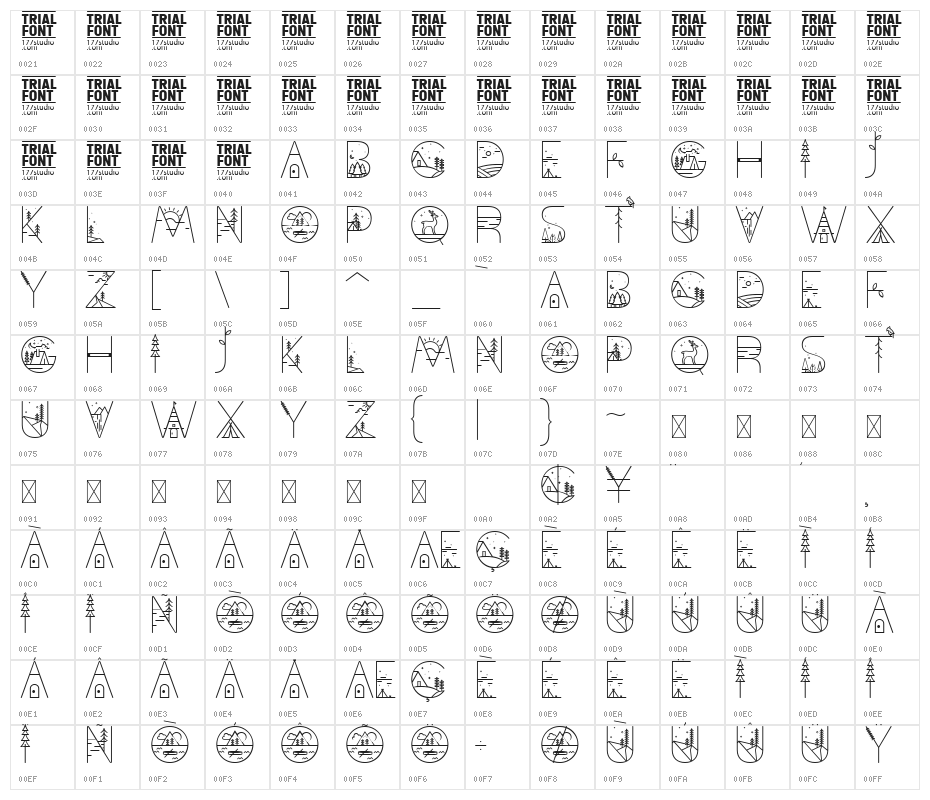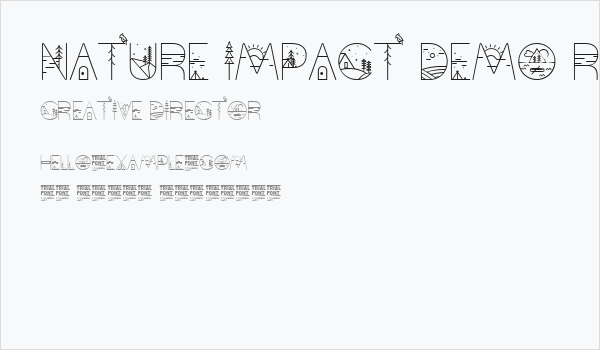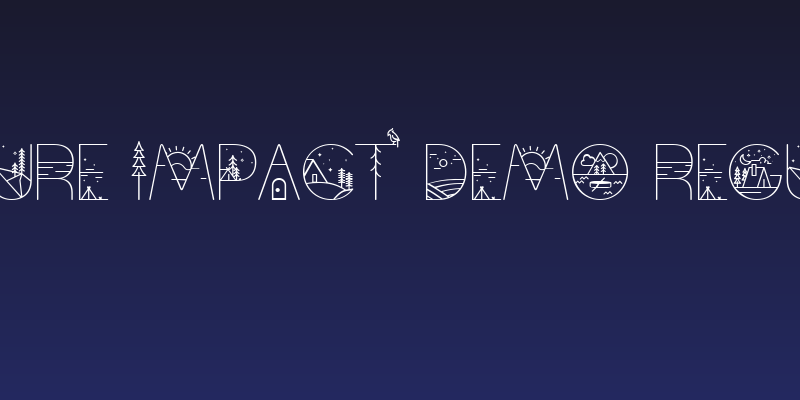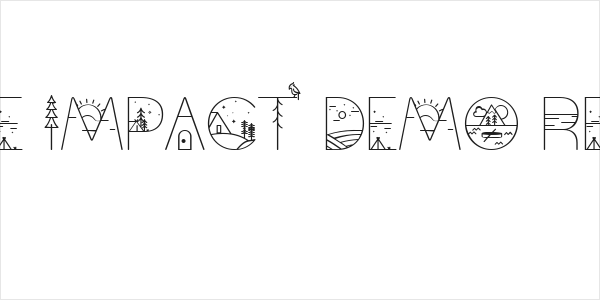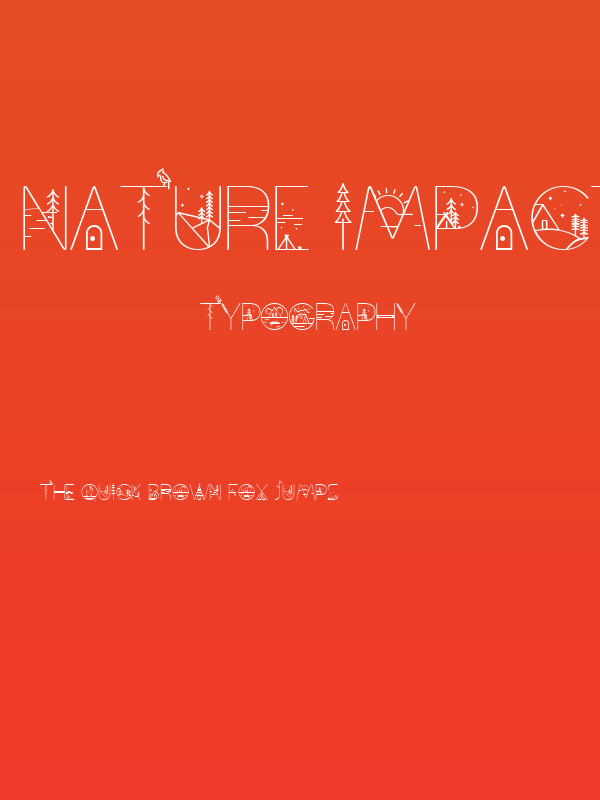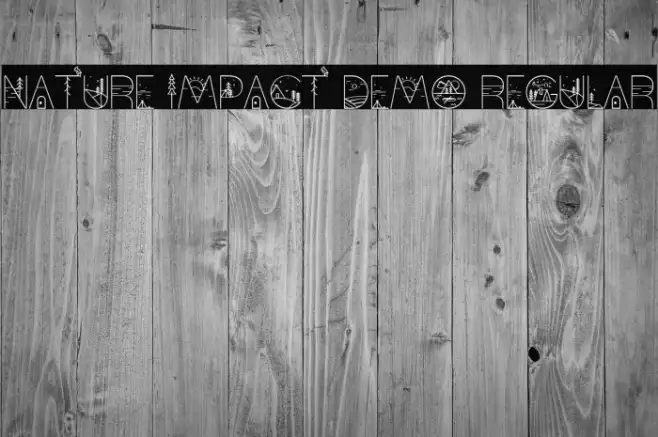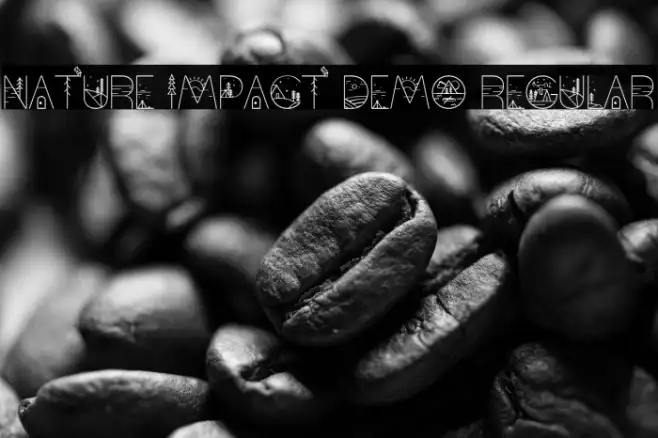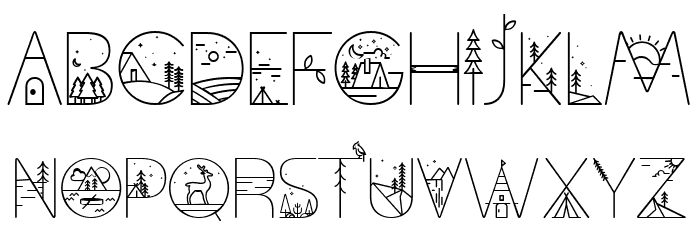
Nature Impact Demo Regular Font
Nature Impact Demo Regular Description
This font features a unique and creative design where each letter is integrated with nature-inspired elements. The uppercase letters are adorned with illustrations of trees, mountains, and wildlife, creating a whimsical and artistic appearance. The lines are clean and precise, with a consistent stroke width that adds to the overall harmony of the design. The font combines elements of both modern and decorative styles, making it visually striking and memorable. The absence of lowercase letters and numerals suggests a focus on decorative use rather than practical text applications.
| Use Case | Logos, Headlines, Posters |
| Proposed Projects | Ideal for eco-friendly branding, outdoor event posters, nature-themed merchandise, and artistic projects. |